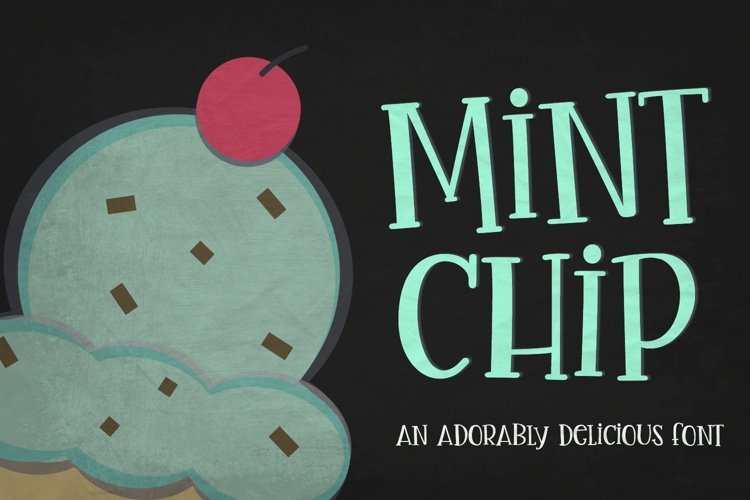
Mint Chip Handwritten Font & Vectors
ABOUT THIS FONT
Mint Chip Handwritten Font is an adorably delicious handwritten serif font and vector bundle that's perfect for apparel, decor, logos and more!
This font is a mixed case spin-off of my Rebel Rouser font....so yes, they are similar and can be used together to create the cutest, creative designs!
Multilingual characters are included to support most European languages!